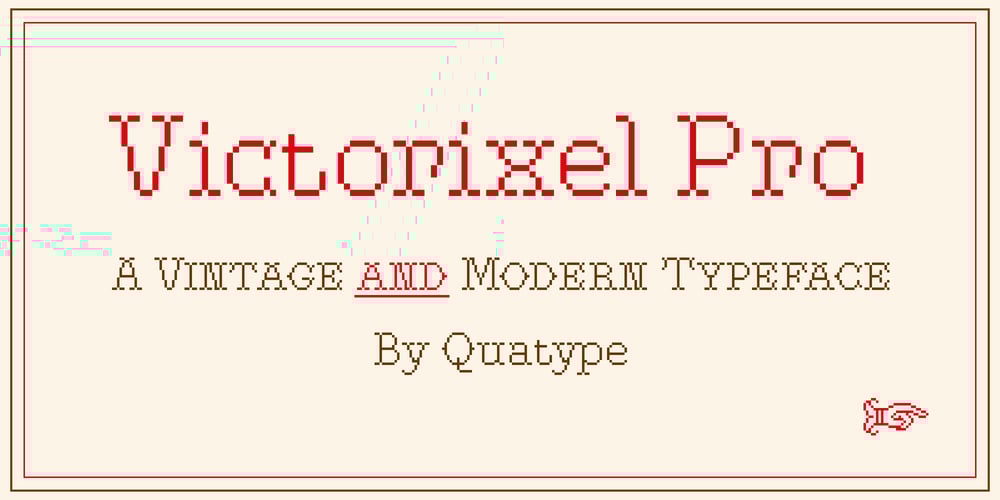
Victorixel Font Family was designed by Quan-gang Li and published by Quatype. Victorixel contains 2 styles and family package options. Victorixel is a pixel font that incorporates the Victorian wood-type style. To organically combine these two styles, I abandoned the exaggerated and ornate shape, yet the essence of the wood type was retained, such as the forked serif at the beginning and end of the letter stem.Victorixel family has over 800 glyphs (including emojis) and it supports lots of Latin-alphabet-based languages. It is suitable for the title, poster, etc.*EASTER EGG*Turn on the ligature OpenType features and input MBTI+emoji will output the MBTI emojis.For instance: ENTPemojiEnjoy!